A whiskey label fonts use aged fonts that are often used for badges, labels and insignias. These must be very exclusive items used and expressive display and script or calligraphic fonts, so if you are going to create such a design for a whiskey bottle then these great fonts listed below are the best pick for you.
Bristain Rought Serif Font
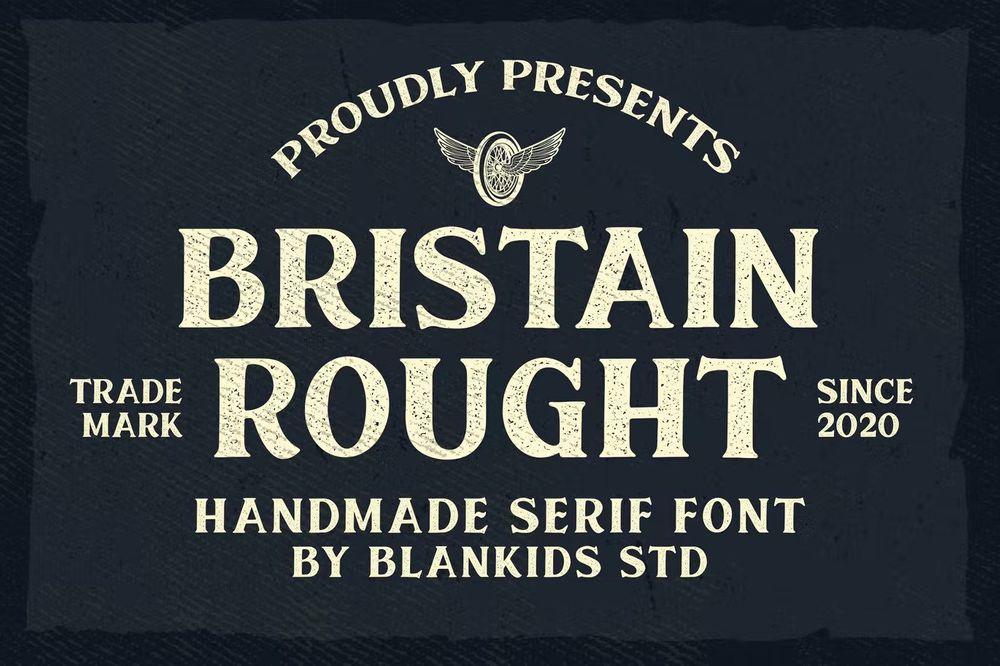
Inspired by modern vintage poster this font is a fun theme very good for posters, apparel, badges, labels, emblems and etc.
Brighton Smith Typeface
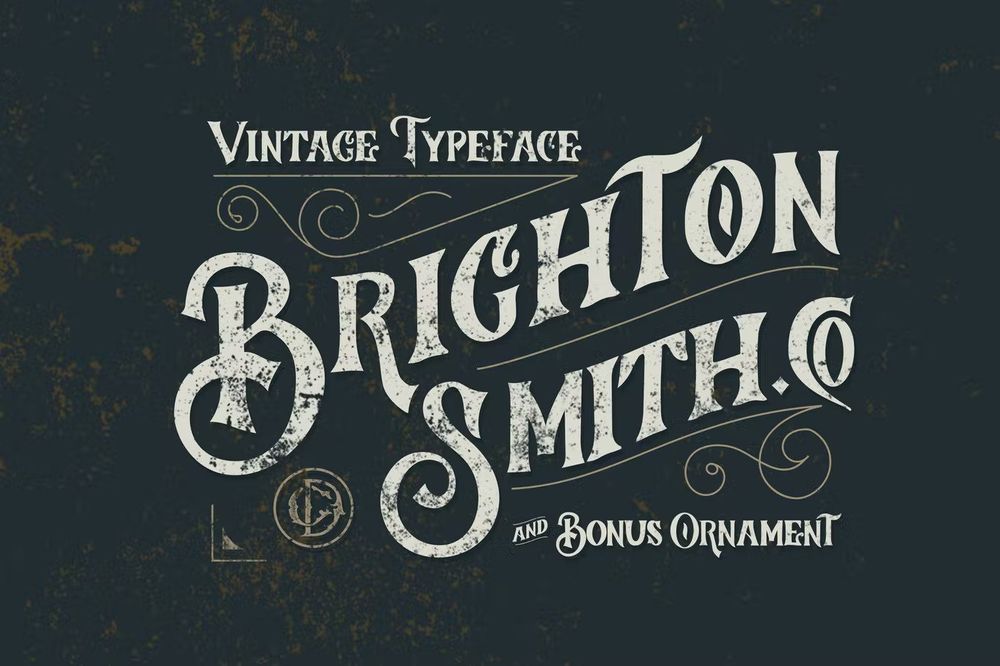
This labeled font inspired from vintage old time. Suitable for headers, logos, brands, clothing, posters, quotes. The ornament pack is included to create your design more attractive.
Western Whiskey Font
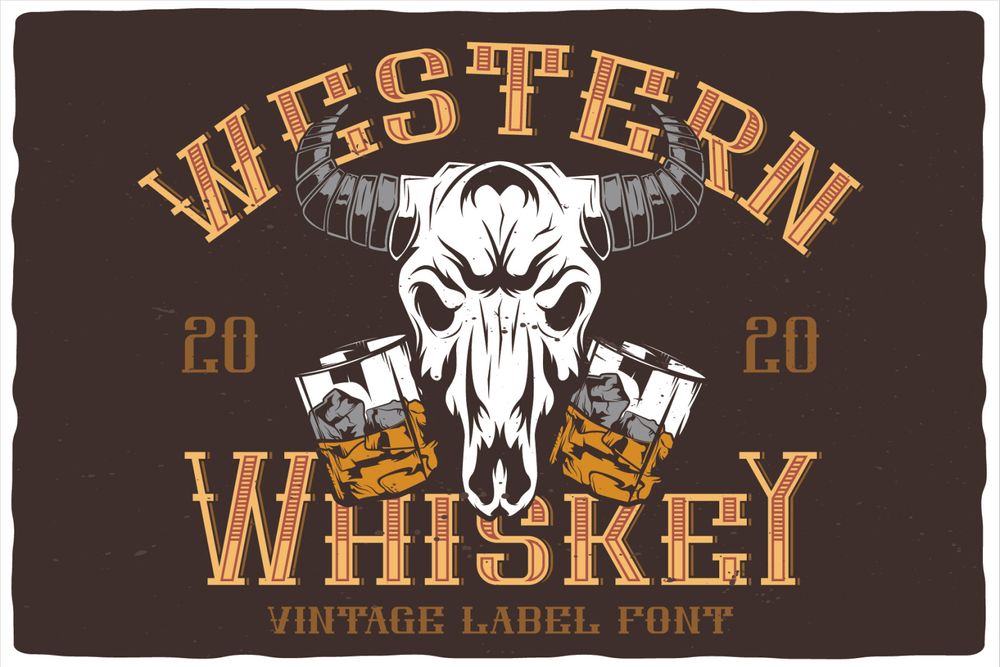
A vintage look label font for whiskey branding so good going for any retro designs like posters, t-shirt, labels, logos and etc.
Whisky Trail Font
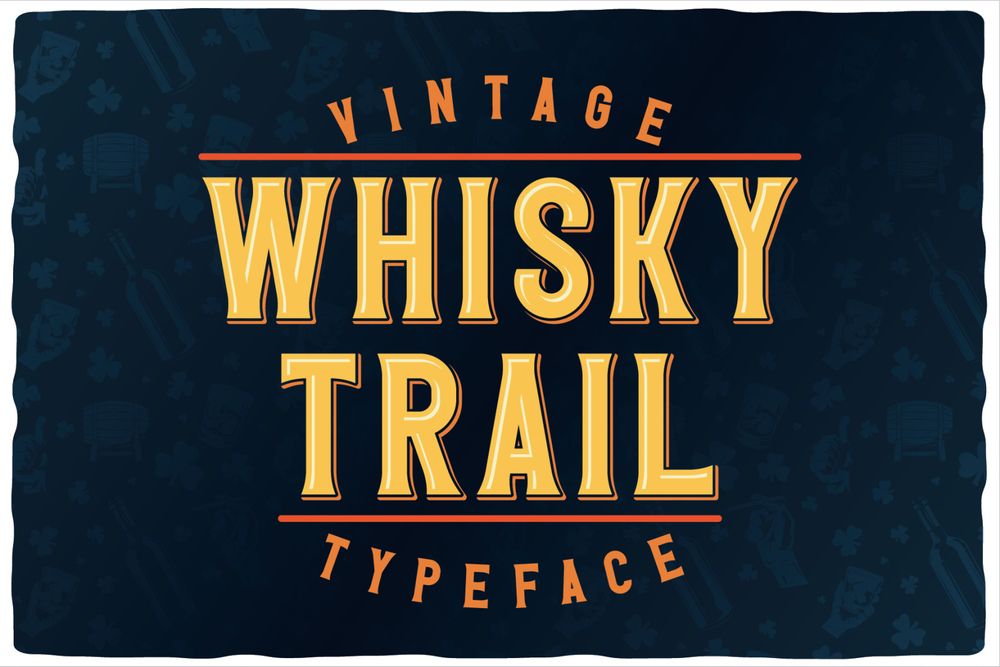
A vintage look label font ideal for any retro designs like posters, t-shirt, labels, logos and etc.
Vitage – Elegant Sans Serif Font
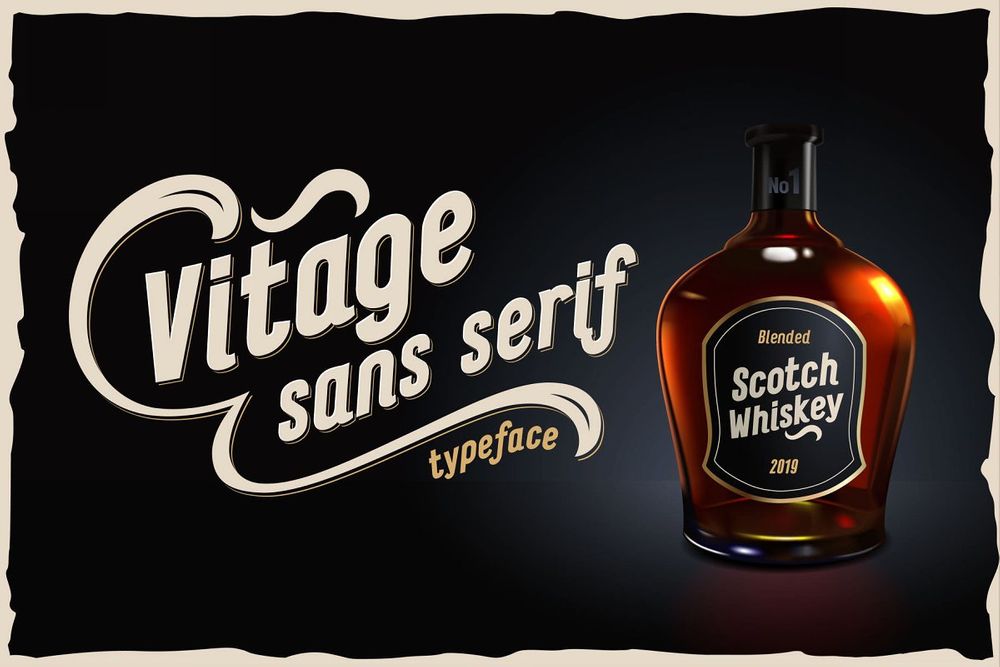
Vintage label font for designs that needed an attractive effects and styles. Perfect for labels, badges, covers, branding and etc.
Black Velvet / A Font Duo Collection
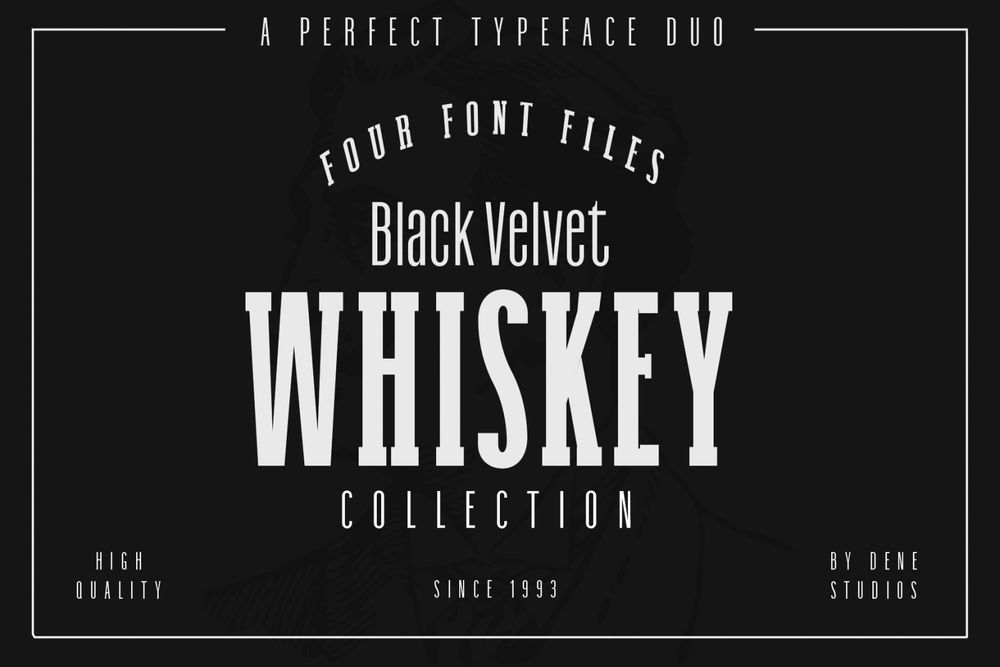
These two typefaces are made for each other. They work together to give you that perfect combination for your latest project. Perfect for logos, signages, advertising, labels and etc.
Black Queen Font + Bonus Graphics
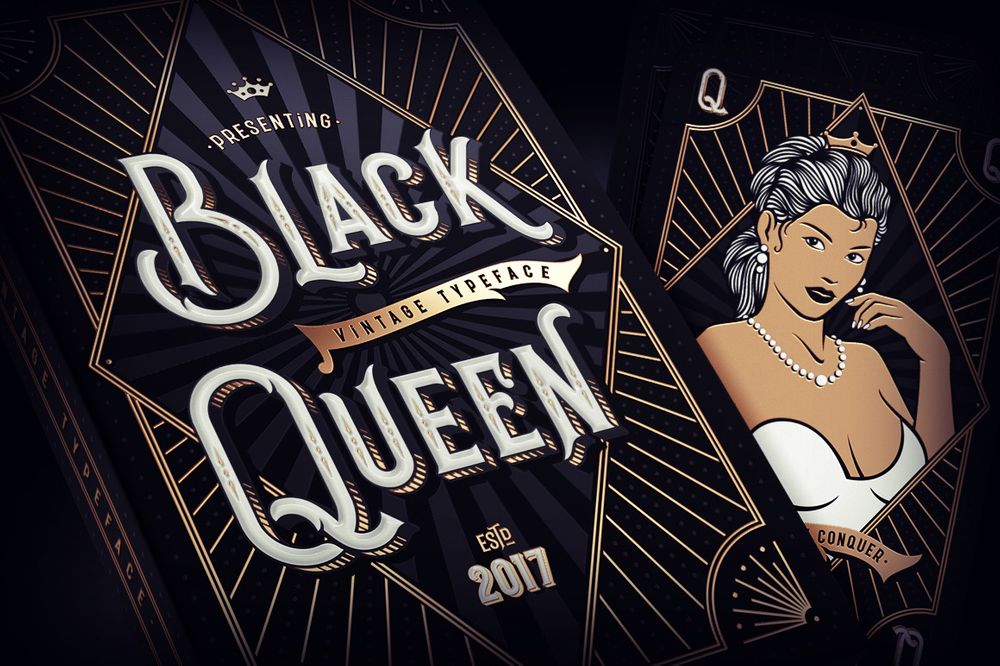
It is a vintage style typeface so good for designs that need an attractive mood such as labels, logos, covers, posters and etc.
Albrighton Font
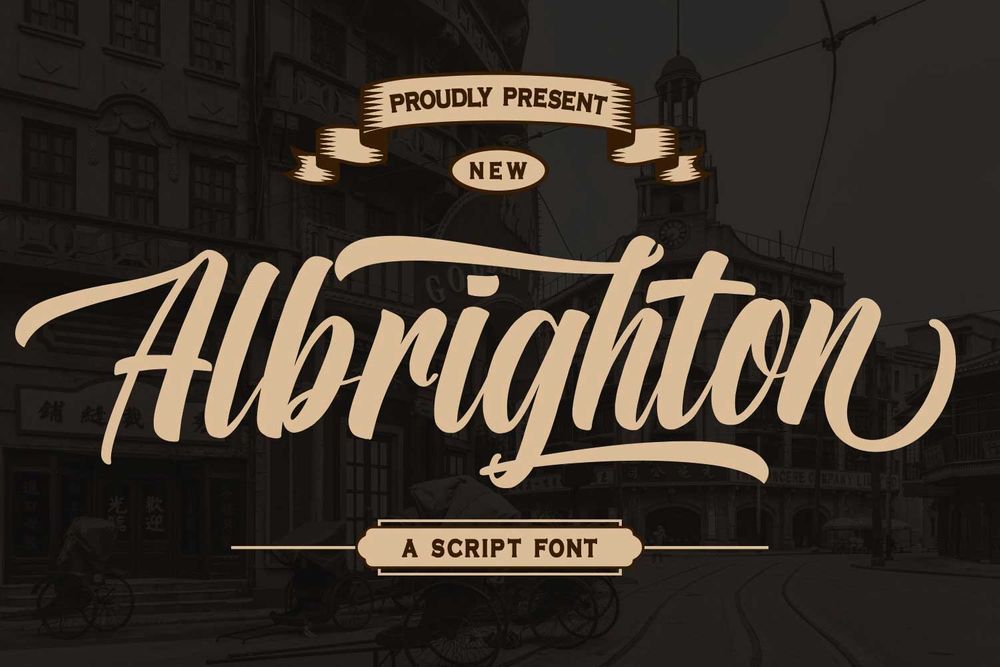
It is an incredibly distinct, delicate and timeless handwritten font. Looks stunning on wedding invitations, thank you cards, quotes, labels, greeting cards, logos, business cards and etc.
Tennessee Whiskey Label Font
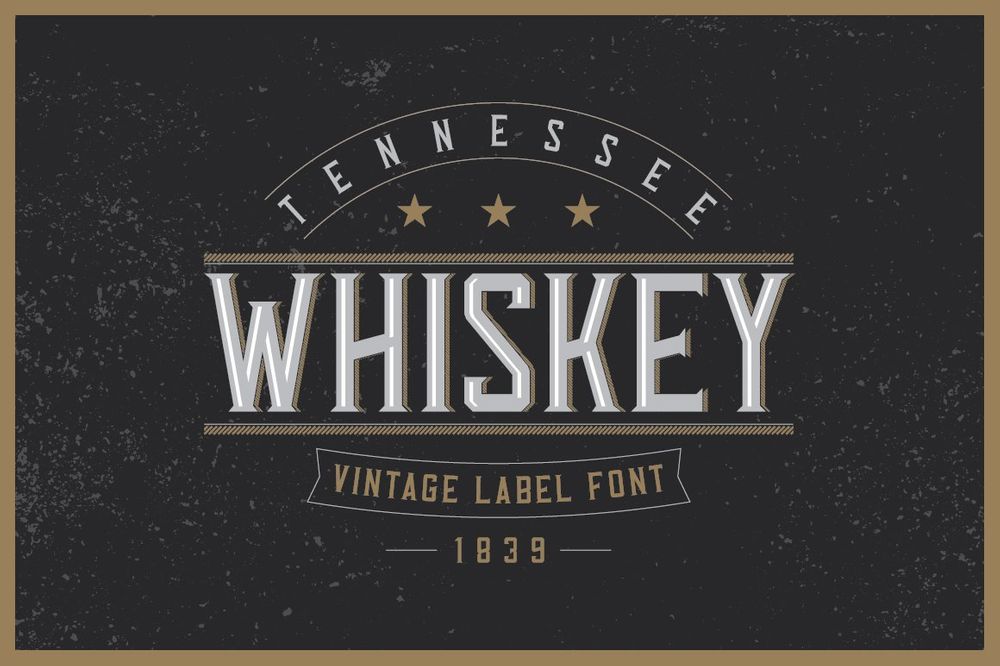
A vintage look label typeface made in strong and vintage label style. It’s good viewed on any labels design and not only.
Free Holtzberg Font
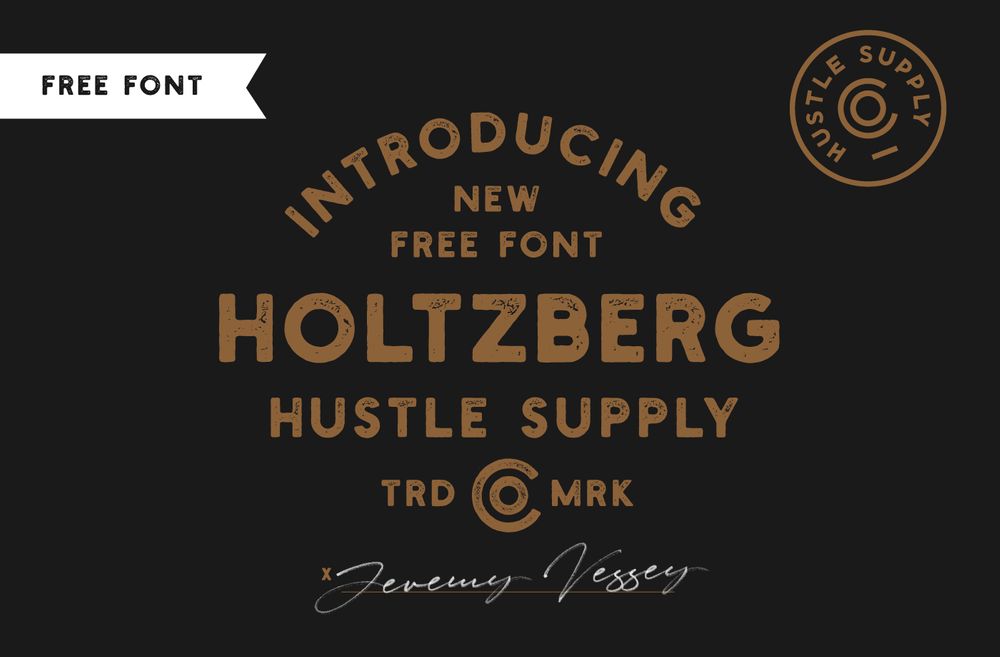
A vintage style free to use font very attractive for any kind of label and badge designs.
Free The Circus Display Font
A rough typeface has a strong charisma, appealing to the audience. Coming in two different styles (regular and striped one). Perfect for labels, badges, branding, posters and etc.
Vintage Label Whiskey Style Font
A special label font for Whiskey branding and not only.
Golden Whiskey Typeface
A vintage look label typeface made in strong and vintage label style. Good viewed on any labels and badges design.
Vianor Font
This is a lovely vintage label font. It is presented in two styles, regular and rough, as well as a decorative layer for them. Works great with text, but it looks even better to display titles, logos or create labels.
Vendeur Vintage Font Family + Extras
A vintage style font family for your perfect design such as logos, labels, badges, posters and etc.
Whiskey Fonts Bundle
Using a 19th century type specimen book as inspiration, this collection features the most authentic font combinations. They look amazing together and can be used for modern and vintage designs.
Whiskey Joint / Vintage Font
It is a vintage font inspired by the aesthetic of some of the most common vices, whiskey and weed. Well-suited for campaigns, branding, packaging, editorial designs and etc.
Golden Whisky Typeface
It is a layered typeface containing uppercase letters and numbers. So good for labels, badges, posters, promotion and etc.
Espano / A Heavy Serif Font
It is a heavy serif font family whose design refers us to the style of modern serif. Suitable for logos, greeting cards, quotes, posters, branding, name cards, labels and etc.
Pipetton Font Duo
The typeface consist of two fonts, the main script font and complementary sans font which is perfectly matched. Perfect for logos, wordmarks, labels and etc.
Dehors / Western Display Typeface